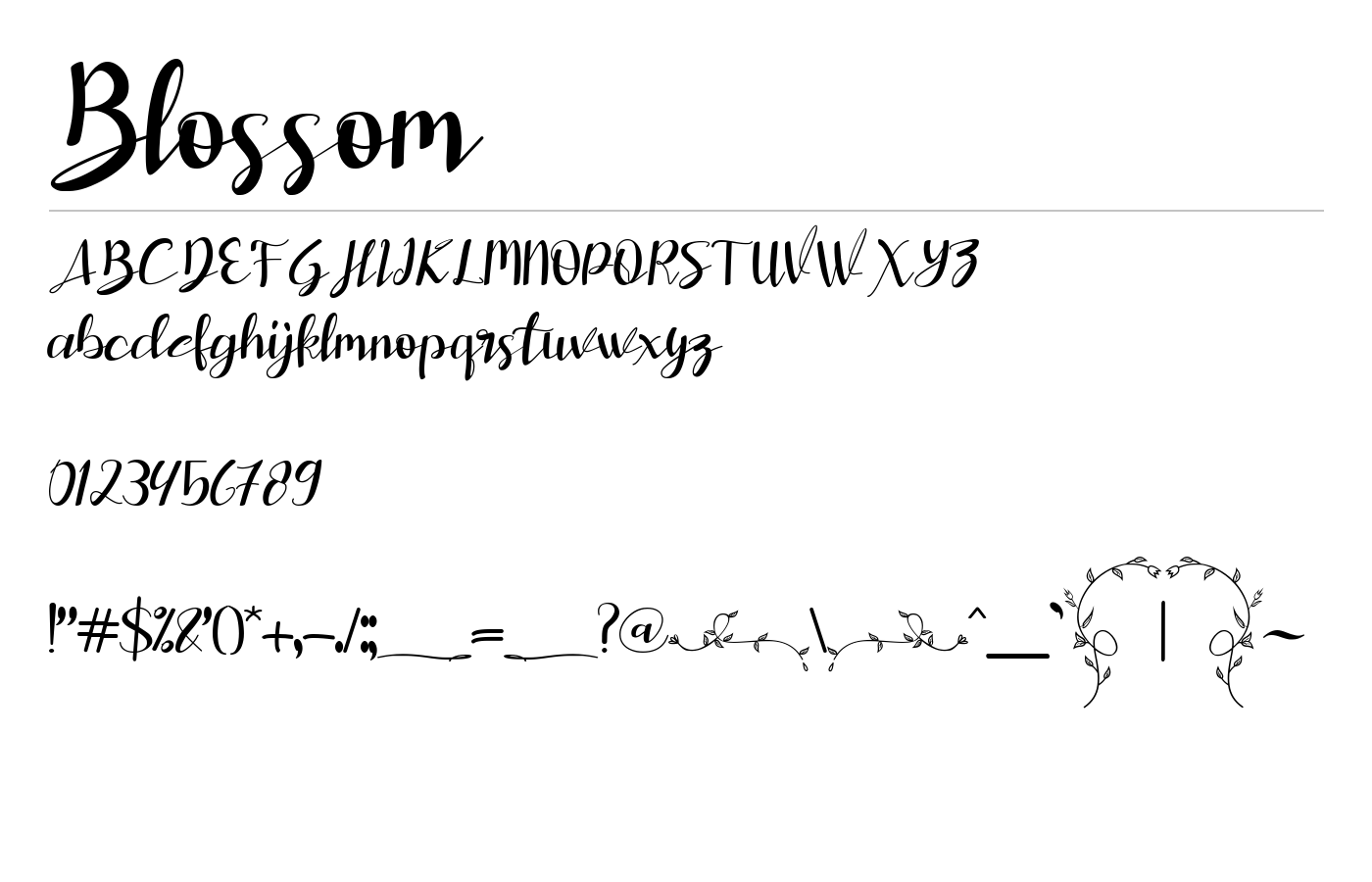
Blossom is an elegant and playful script font with fluid, hand-drawn strokes that combine thick and thin contrasts for a lively, artistic feel. Its decorative leaf accents add a whimsical, natural touch, making it perfect for creative branding, invitations, and feminine or nature-inspired designs. This font works well in headlines and logos where a charming, personal style is desired.
Blossom Font
About Blossom Font
| Font family | Blossom Font |
| Designer | Dan'Kin Don |